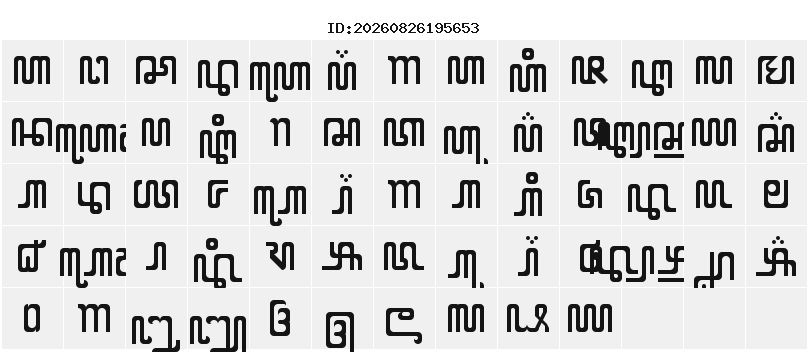
X Code from East Preview
• Font Name: X Code from East
• Full Font Name: X Code from East Regular
• Copyright: Copyright Adien Gunarta 2011 “X Code from East” is based on “Aksara Jawa” by “addienne” (http://fontstruct.com/fontstructors/addienne)
• Designer: Adien Gunarta
• Description: “X Code from East” was built with FontStruct “X Code from East” is based on “Aksara Jawa” by “addienne” (http://fontstruct.com/fontstructors/addienne)
About X Code from East.ttf
X Code from East.ttf is a modern, elegant sans-serif font designed for ultimate readability and visual harmony. Perfect for branding, headlines, web design, and print materials.